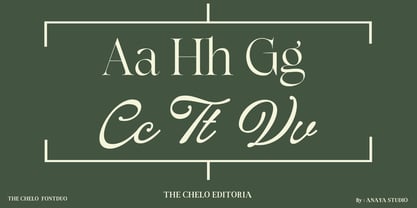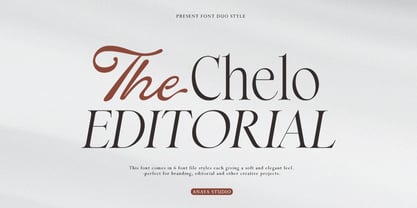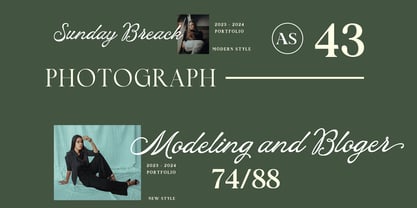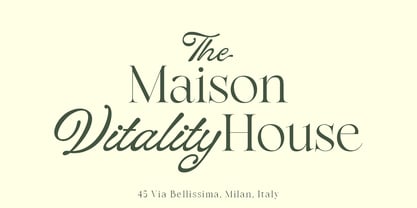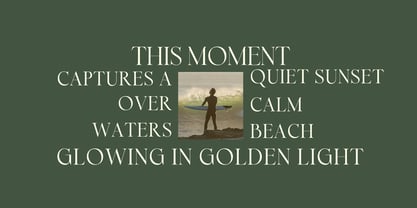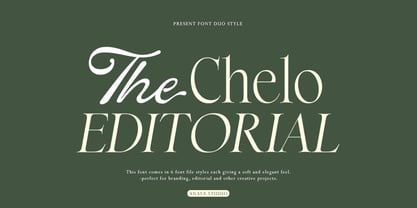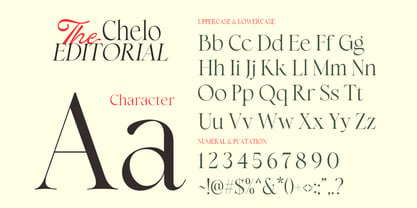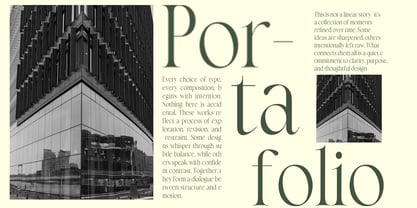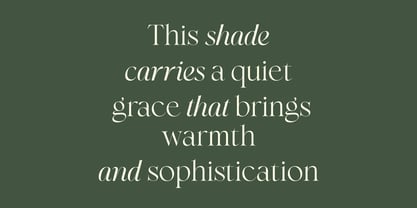
The Chelo Editoria
The The Chelo Editoria Font Family was designed by Julizar Ismail and published by Anaya Studio. The Chelo Editoria contains 6 styles and family package options. More about this family
Introducing a Timeless Typeface with Editorial Elegance Crafted with a perfect harmony between graceful script and refined serif, this font duo delivers a luxurious and sophisticated aesthetic. The flowing curves bring softness and personality, while the classic serif adds structure and authority — creating a balanced, high-end visual identity. Designed for modern branding, editorial layouts, fashion campaigns, wedding stationery, packaging, and premium logo design, this typeface embodies elegance in every detail. Each character is thoughtfully shaped to ensure smooth readability while maintaining its artistic charm. Whether you are building a luxury brand or creating stylish visual content, this font will elevate your design with confidence, class, and timeless beauty